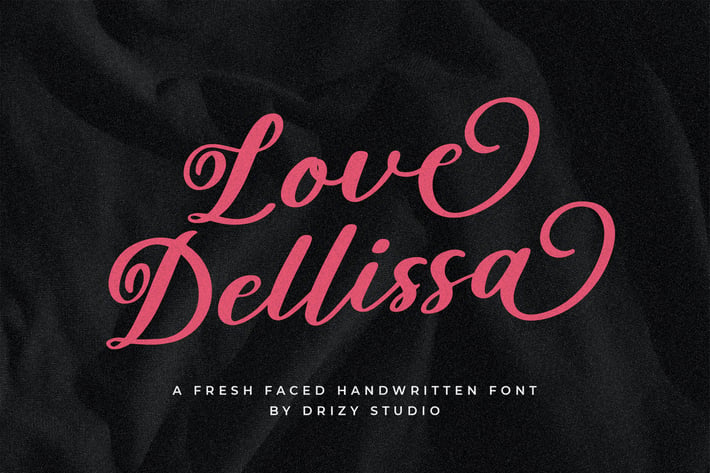
Love Dellissa - Calligraphy Font
Love Dellissa is a calligraphy font from Drizy studio. Offering all the basic styles you will need especially Christmas theme project.
Love Dellissa Features:
Multilinguals
Ligatures
Alternates